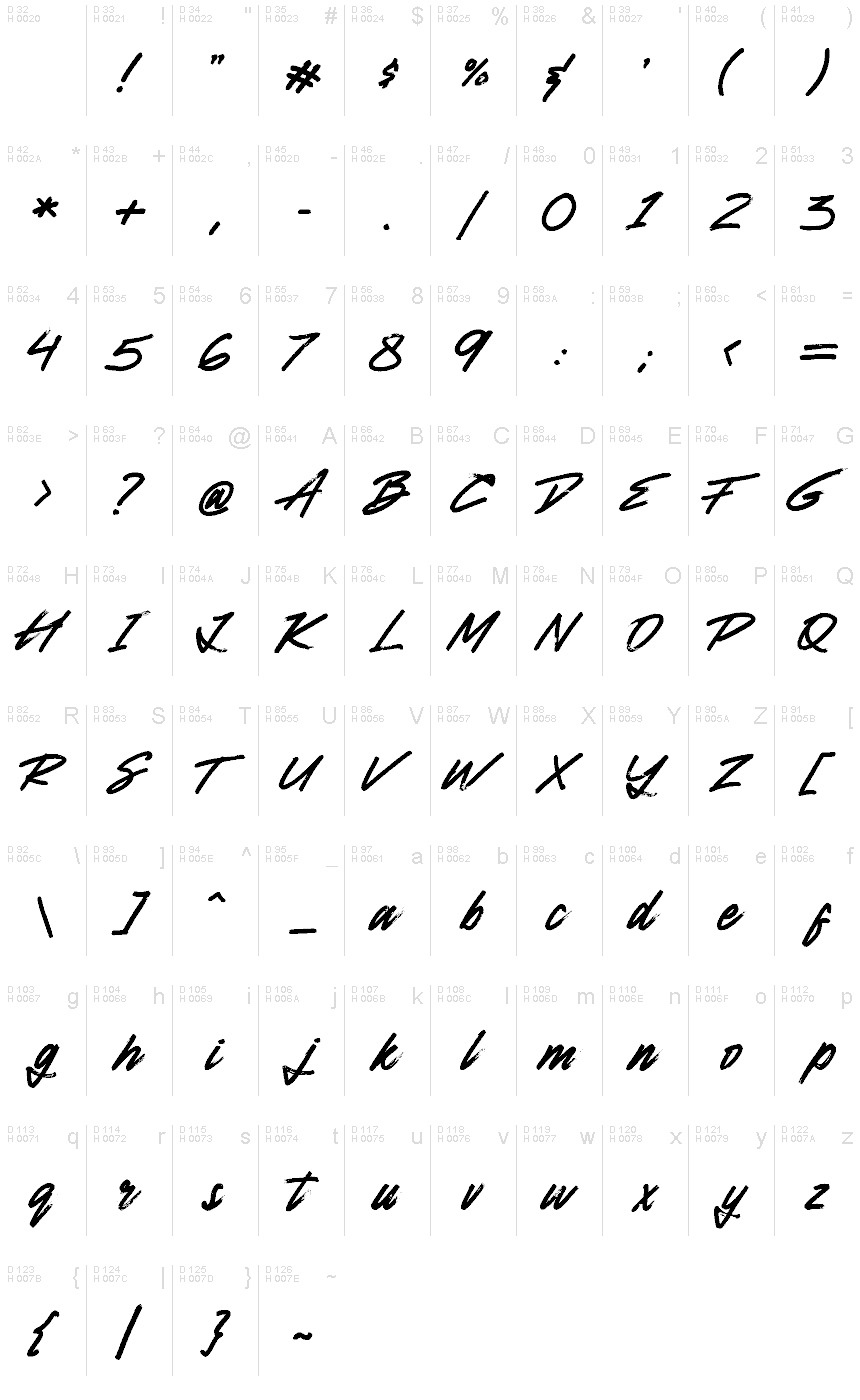
Amnesty Script
Amnesty Script font by Excellent Ritma Florendia is a rustic handwritten font with an expressive style and casual vibe. Its modern feel is achieved through the brush-like texture and condensed width that perfectly conveys passion and a powerful spirit. Thanks to its dynamic appearance, it can bring life to both short paragraphs and large text displays.